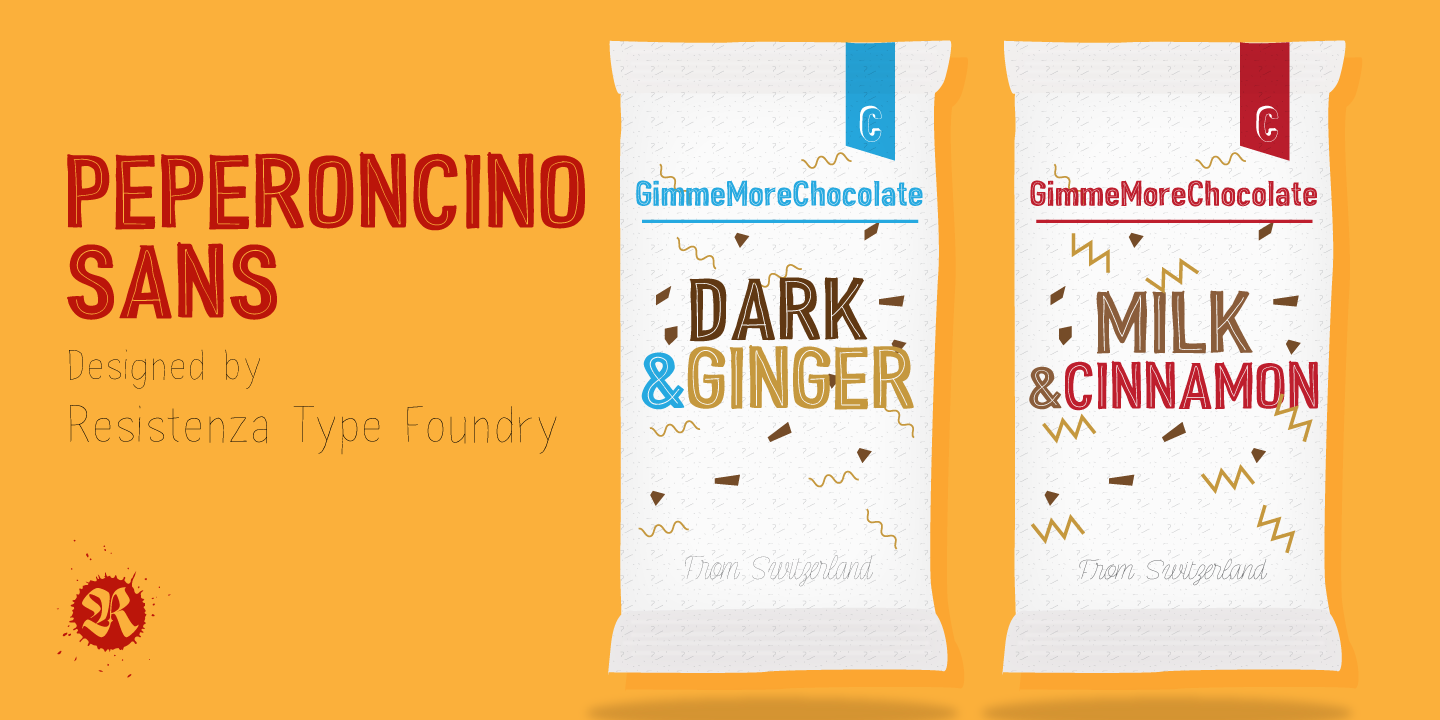
Looking for a clean yet flavorful sans-serif with subtle Italian warmth? The Peperoncino Sans Font Free Download delivers modern typography with a pinch of Mediterranean character—perfect for contemporary food branding, minimalist packaging, and designs needing approachable sophistication.
Why Choose Peperoncino Sans?
The Peperoncino Sans Font Free Download blends utility with personality:
Subtle Italian Flair – Rounded terminals mimic hand-painted signage
Organic Modernism – Softer than rigid geometric sans-serifs
5 Spicy Weights – From Light (olive oil) to Black (aged balsamic)
Tactile Texture – Optional subtle grain effect for warmth
Modern trattoria branding
Artisan grocery packaging
Food blogger templates
Cooking app interfaces
Wine/spirit minimalist labels
Chef’s Tip: Pair with the textured version for headings and clean version for body text